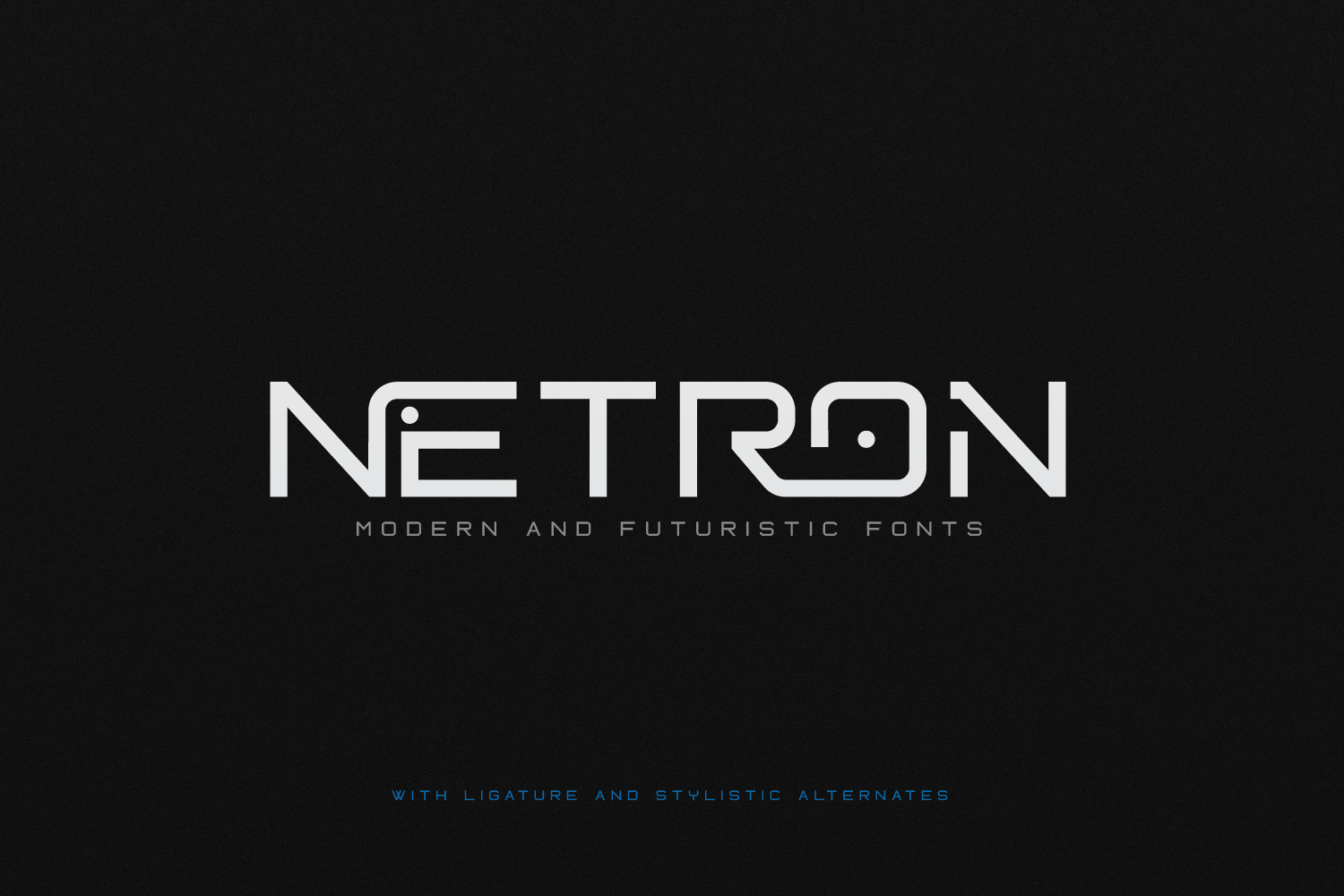
Netron - Futuristic Font
Netron Is a sans serif Font that has a futuristic feel, designed with minimal lines to keep it simple and artistic. This gives your text a modern smart effect. This font is equipped with ligature and alternative letters will be very good for your work such as posters, logos, magazines, covers, banners, t-shirts and headers, or even large scale artwork. What you get dear, you will get :
- Netron- A clean San serif font including Upper & Lowercase characters(ALL CAPS),
- Ligatures Character(187 characters) & Stylistic alternates Character (39 Character)
Netron font is a display font, this font is equipped with lowercase and uppercase letters (All caps) uppercase and lowercase letters are the same, but for uppercase letters it is designed in a minimalist style, this font is also equipped with opentype, ligature, and alternate features (Use an application that supports opentype features, like adobe illustrator for example) are all in the description. Thanks